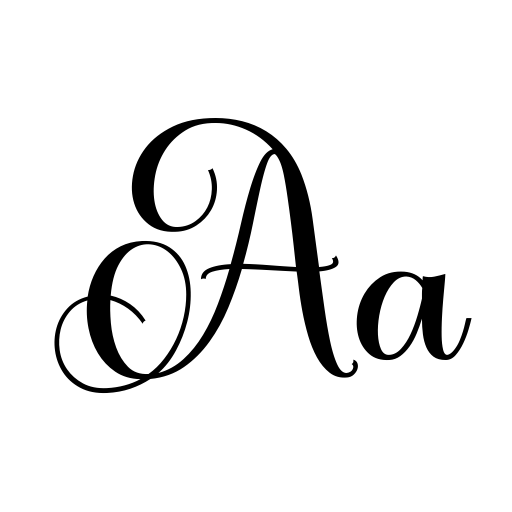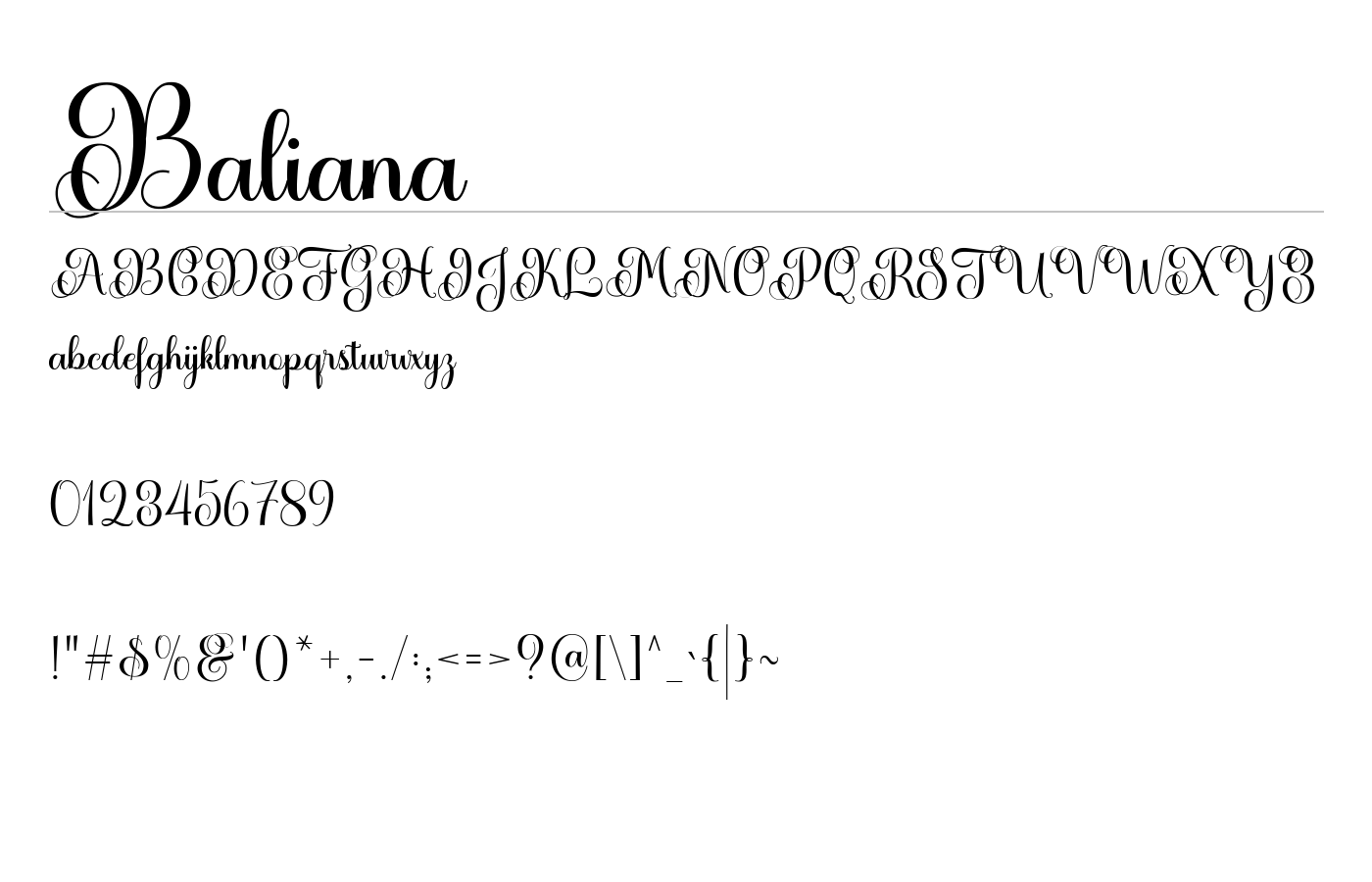
Baliana is an elegant script font characterized by its delicate, flowing strokes and ornate swashes, creating a sophisticated and graceful impression. With its thin weight and high contrast between thick and thin lines, it captures a luxurious, vintage charm perfect for fashion branding, wedding invitations, and upscale editorial use. Its highly decorative uppercase letters and refined lowercase forms make it ideal for expressive headlines and logos that need a touch of classic elegance.
Baliana Font
About Baliana Font
| Font family | Baliana Font |
| Designer | Muhammad Nasir |